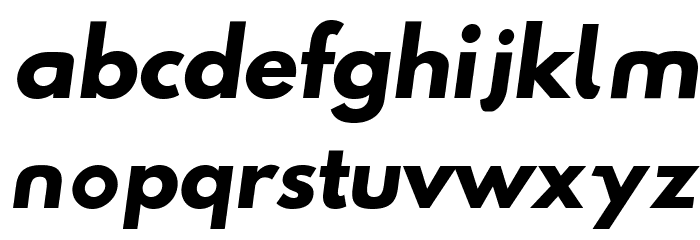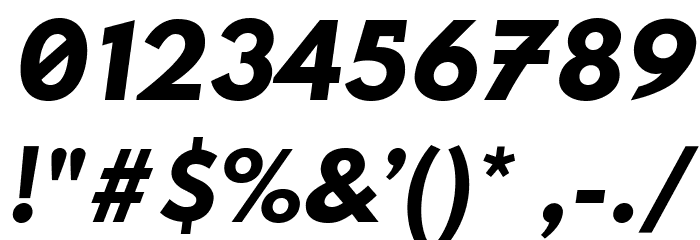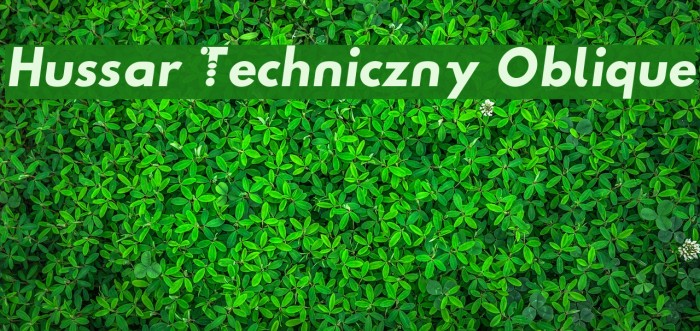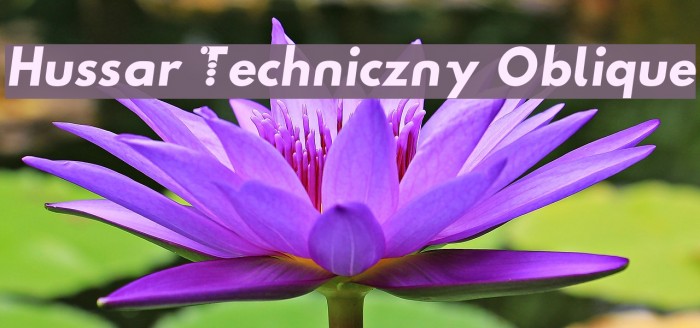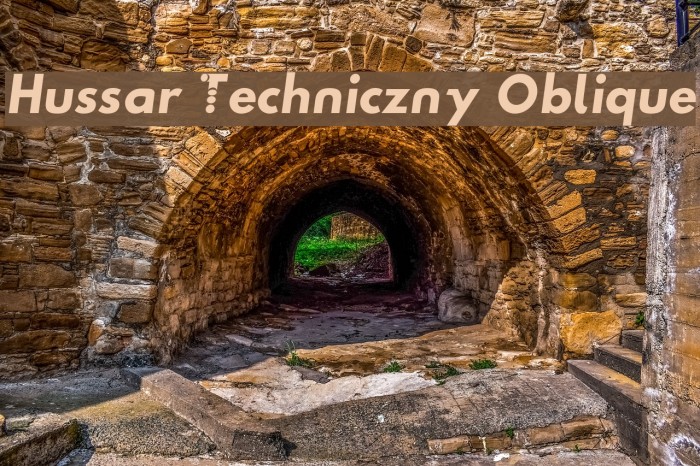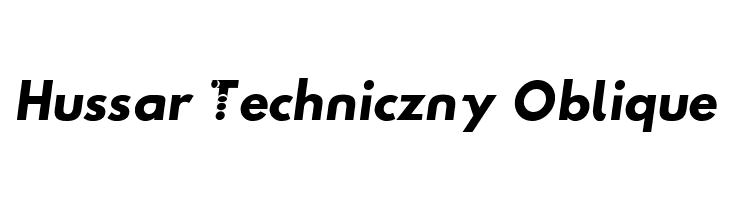
Hussar Techniczny Oblique Font
This font features a bold and dynamic style with a distinct oblique slant, giving it a sense of motion and energy. The characters are well-defined with a modern aesthetic, characterized by clean lines and a geometric influence. The uppercase letters are particularly striking, with unique design elements such as the diagonal cut in the 'A' and the distinctive tail of the 'Q'. The lowercase letters maintain the same boldness and clarity, ensuring readability. The numerals are consistent with the overall style, offering a uniform appearance across all characters. Special characters are included, providing versatility for various design needs.
A bold, oblique font with a modern, geometric style.